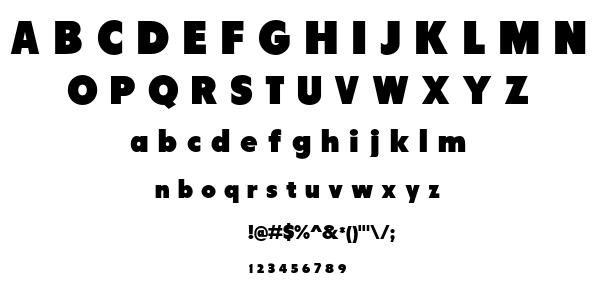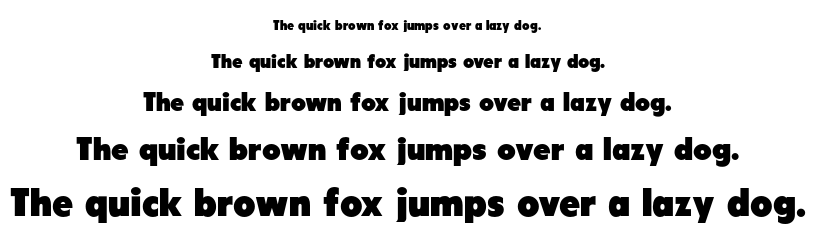
A versatile display font that combines classic proportions with modern styling. The precise letter fit makes it perfect for use across signage, book jackets, packaging, posters and t-shirts. Details include an extended European character set, manually edited kerning and Euro symbol.